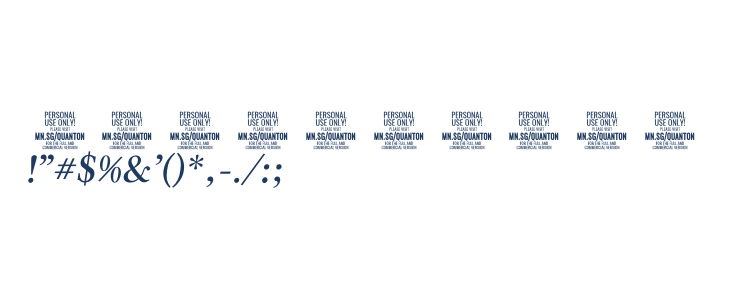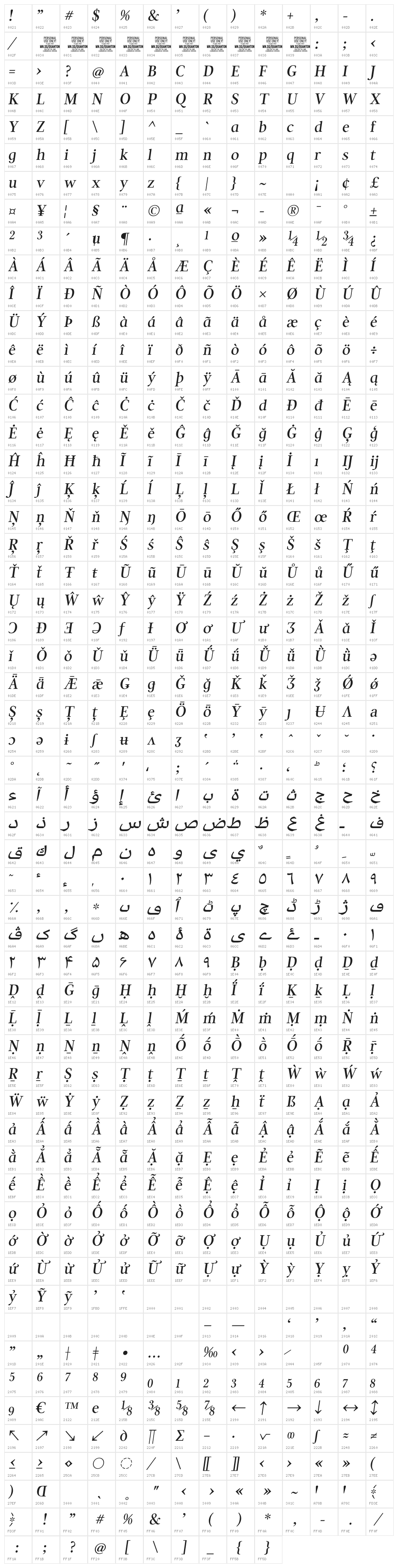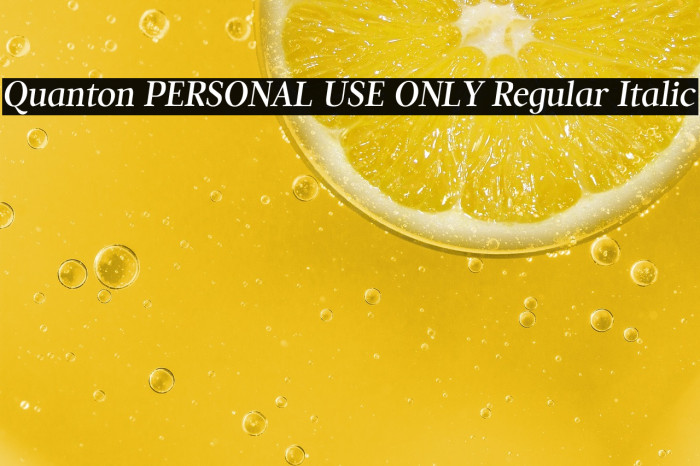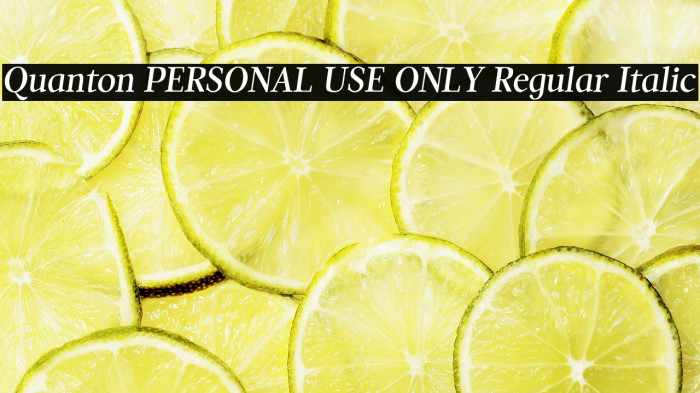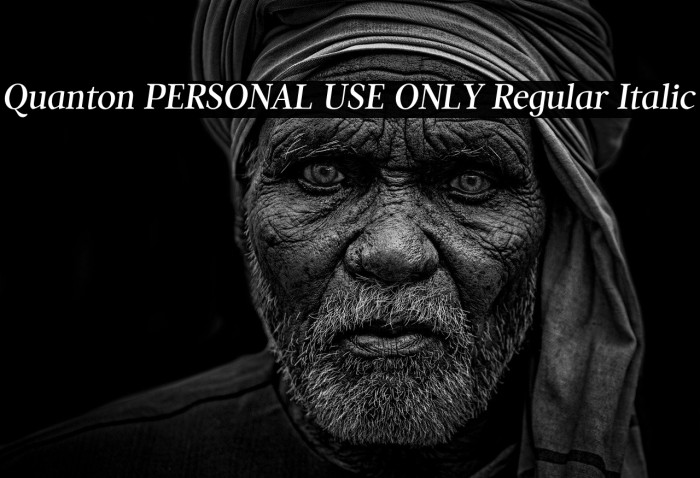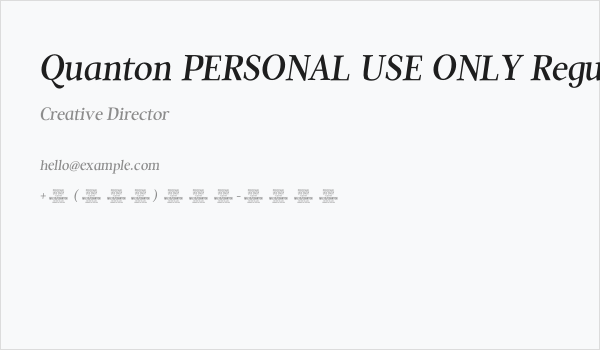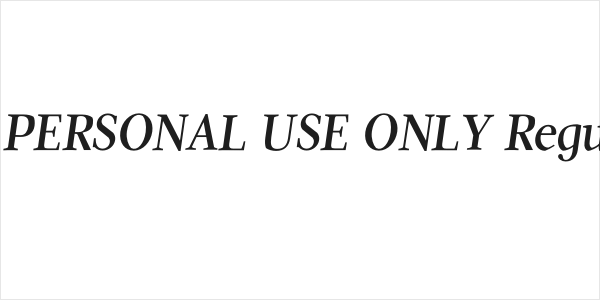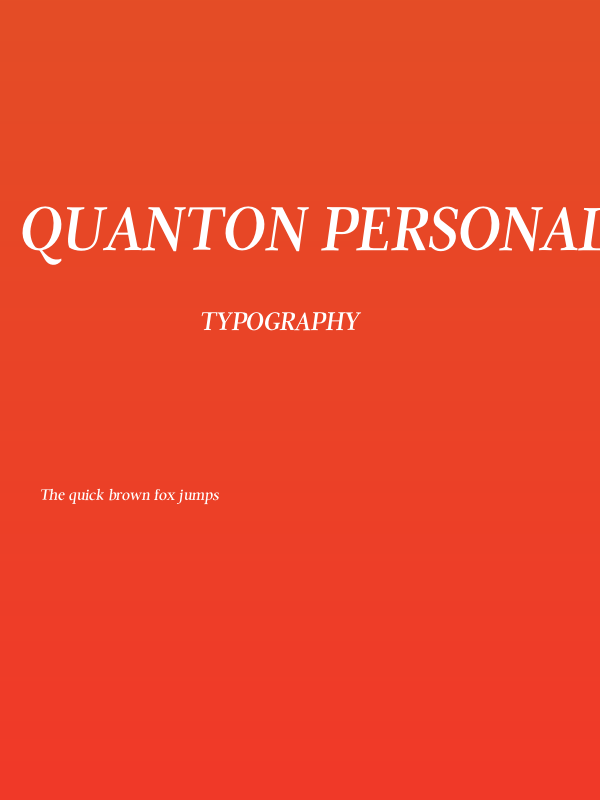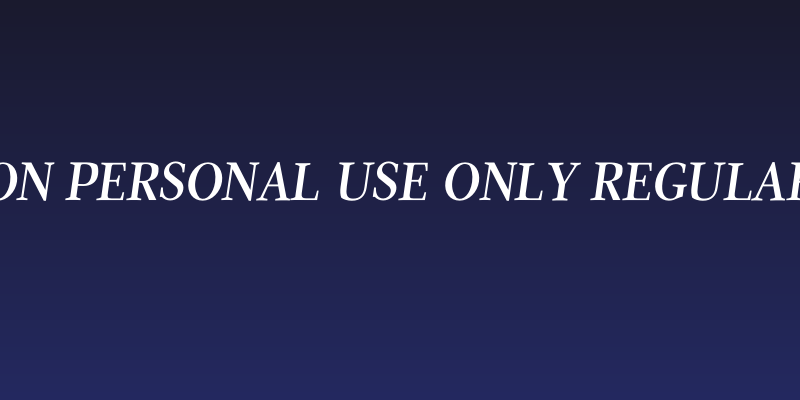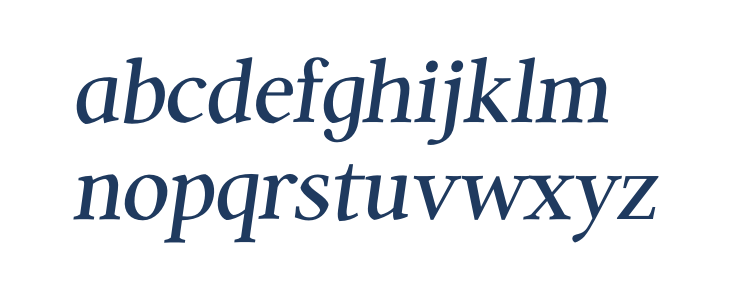
Quanton PERSONAL USE ONLY Regular Italic Font
Quanton PERSONAL USE ONLY Regular Italic Description
This font exhibits a classic serif style with a modern twist, characterized by its elegant and slightly slanted italic form. The uppercase letters are tall and commanding, while the lowercase letters maintain a consistent flow with smooth curves and sharp serifs. The numerals are well-proportioned, complementing the overall aesthetic. Special characters are designed with the same attention to detail, ensuring a cohesive look across all glyphs. The font's italic nature adds a sense of movement and sophistication, making it suitable for a variety of design applications.